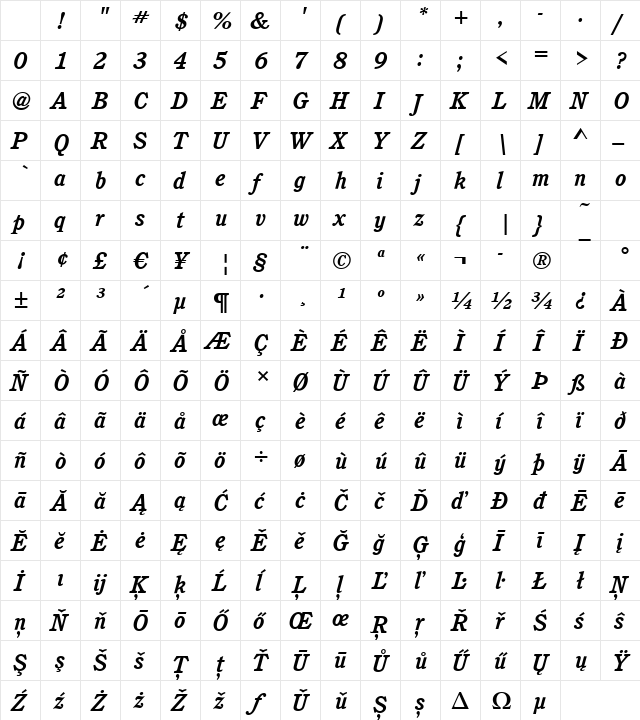
Calgary is a composed and adaptable typeface that performs quietly and consistently across a wide range of design contexts. The slanted form adds forward momentum and visual energy. Its bold stroke weight gives it real presence on the page.
Pro Tip: Use Calgary for emphasis, pull quotes, and subheadings where its slanted energy can add rhythm to the layout.